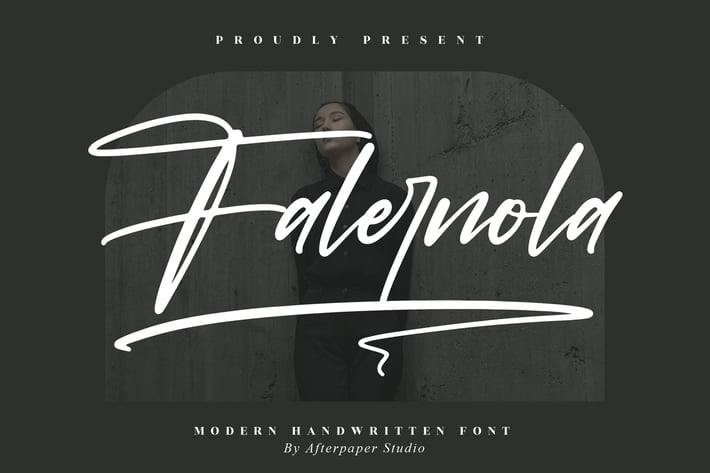
Falernola Modern Handwritten Font
Falernola is a modern handwritten font designed to bring an elegant yet expressive touch to your creative projects, delivering smooth strokes and a bold signature feel that instantly elevates your visual identity. Crafted for designers who want a stylish handwritten look, Falernola adds personality and sophistication to posters, branding, social media layouts, and personal artworks.
Elegant handwritten style
Smooth curves with signature aesthetics
Clean, modern, and expressive look
Great readability in both large and small sizes
Branding projects
Posters & display titles
Social media posts
Invitations
Logo designs
* Editorial layouts
A beautifully bold handwritten font that turns simple words into standout visuals.